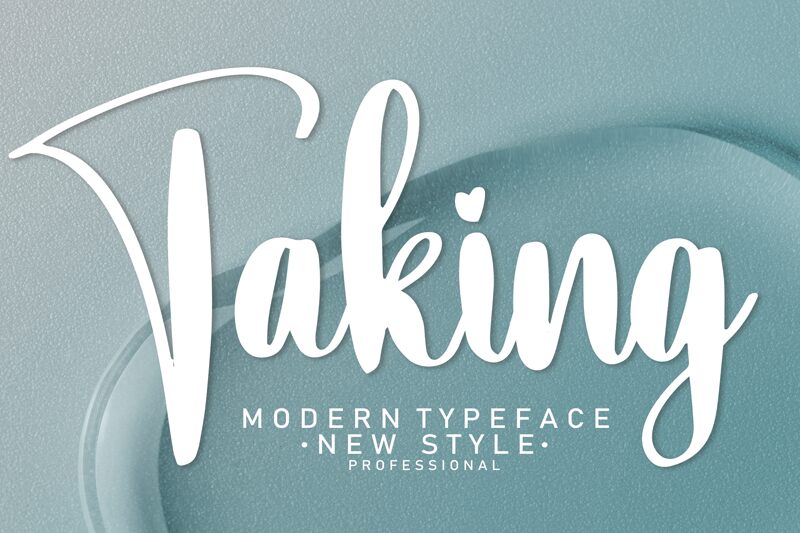
Taking
Crafting a captivating visual experience, "Taking" by Scratchones is a dynamic, handwritten font that exudes a spirited, marker-inspired aesthetic. With its expressive, bold strokes and playful curves, this font effortlessly conveys a sense of movement and energy, making it a compelling choice for projects seeking a distinct, artisanal flair.
The Taking font's versatility shines through, lending itself seamlessly to a wide range of design applications. From eye-catching headlines and impactful branding to unique packaging and engaging social media content, the Taking font's distinctive style can elevate any project, adding a touch of authentic, handcrafted charm that resonates with audiences.